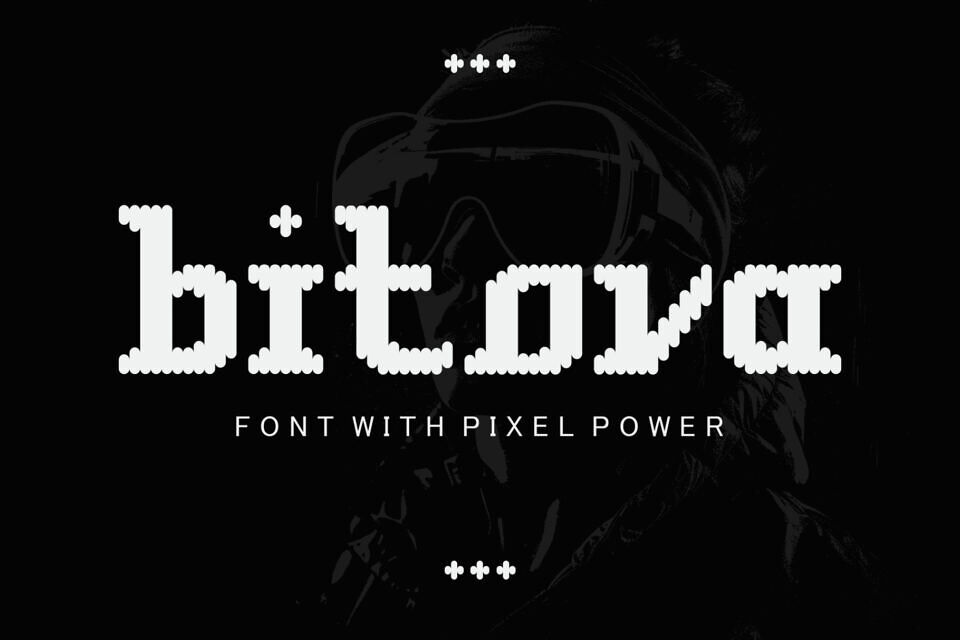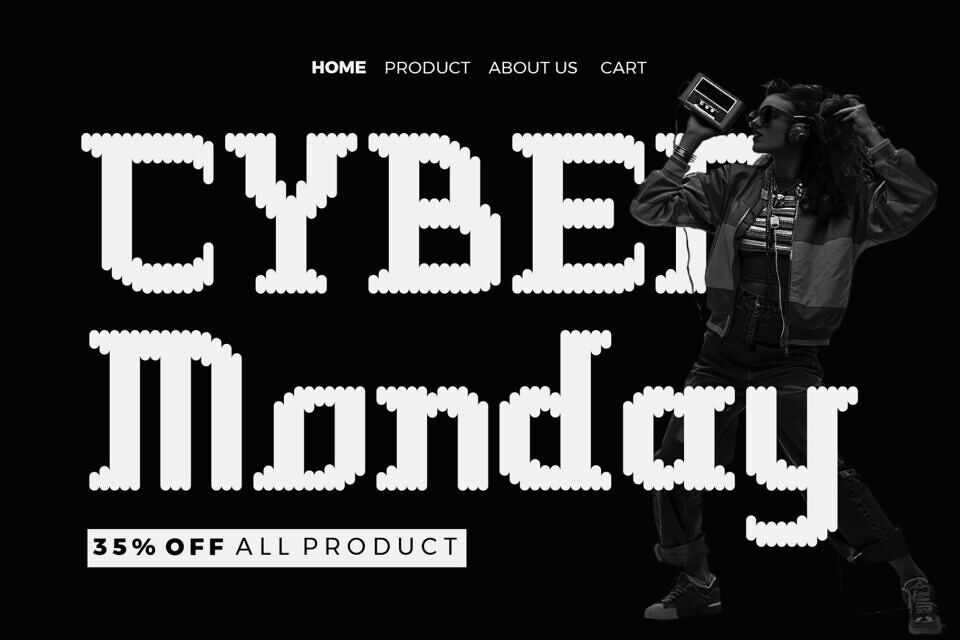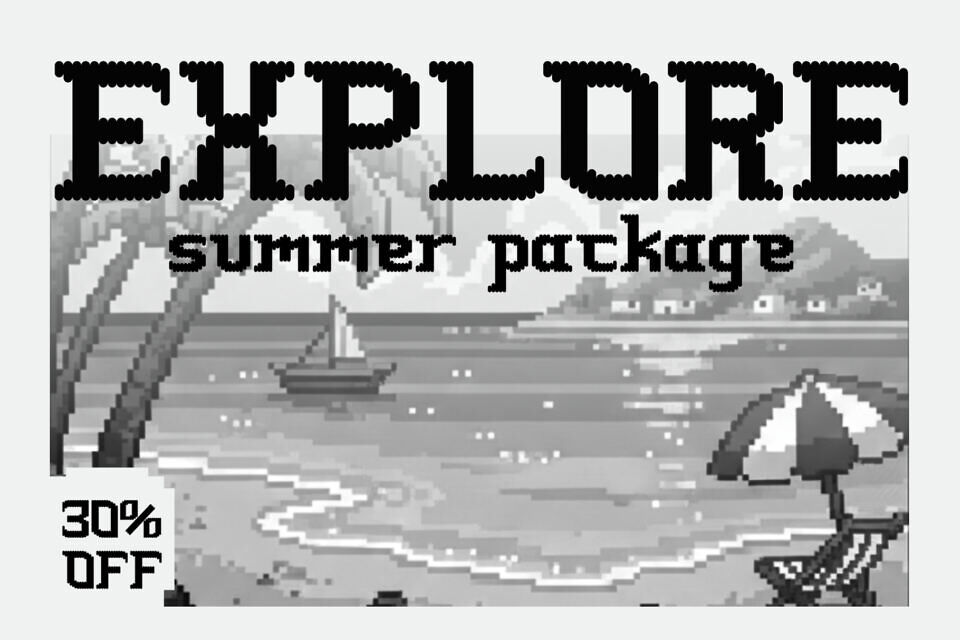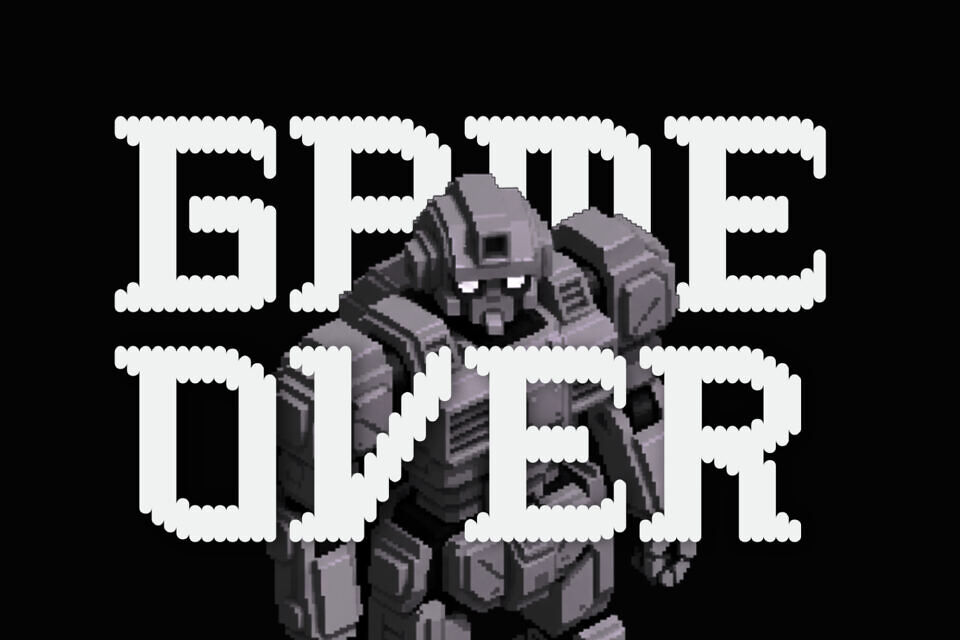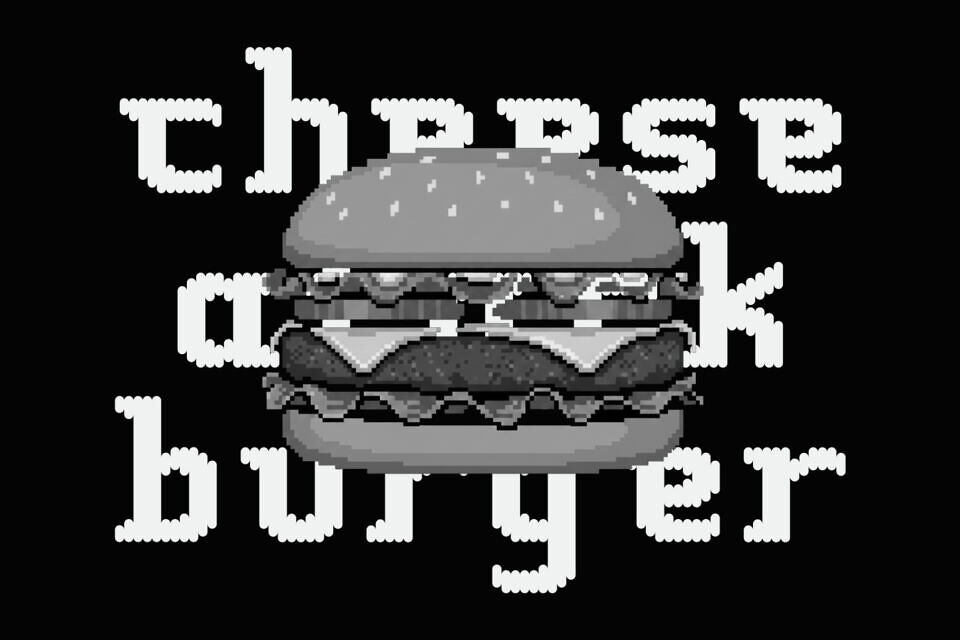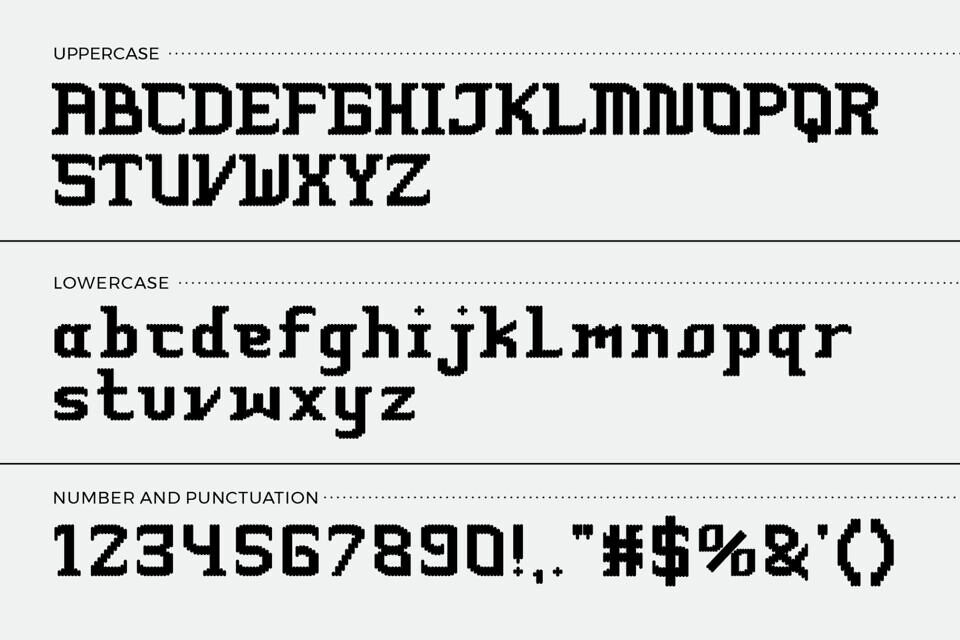
Bitlova is a rounded pixel display font designed for retro lovers, digital artists, and modern creators who want a powerful blend of nostalgia and style. Created using a unique dotted-pixel construction, Bitlova brings the spirit of classic 8-bit gaming into a cleaner, smoother, and more expressive visual form.
Featuring uppercase and lowercase letters, numbers, punctuation, and multilingual support, this font is perfect for a wide range of design needs. The dotted pixel texture makes every letter stand out, giving your typography a fun, bold, and instantly recognizable personality.